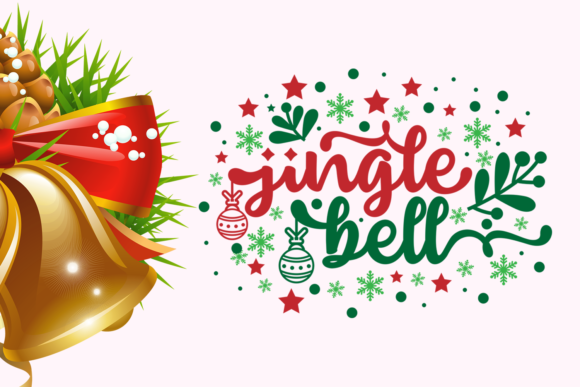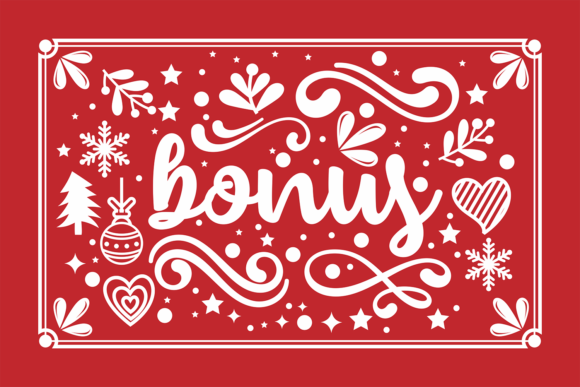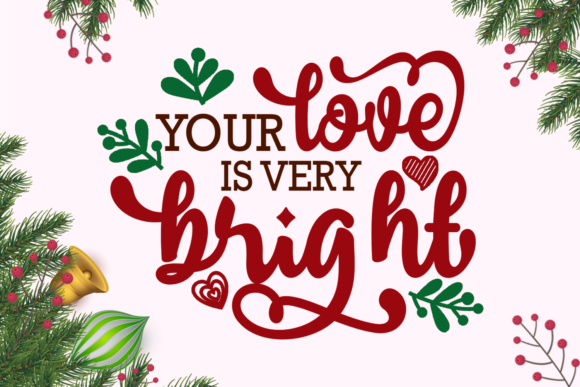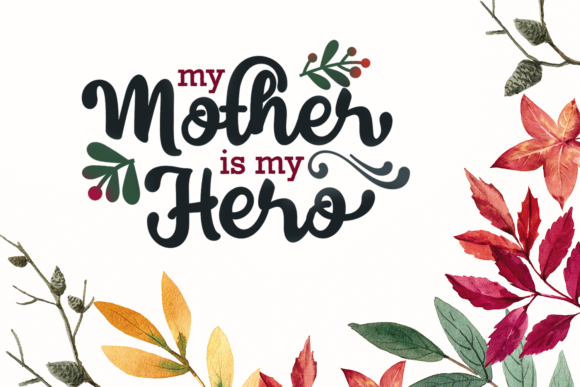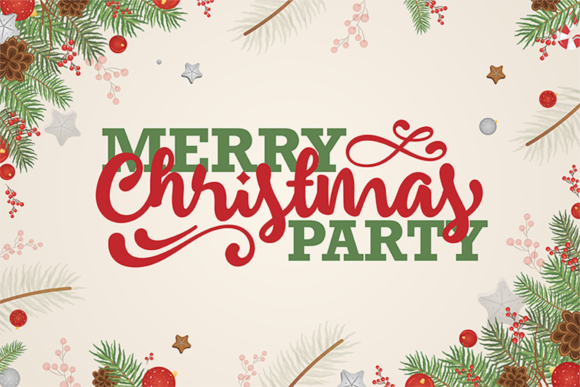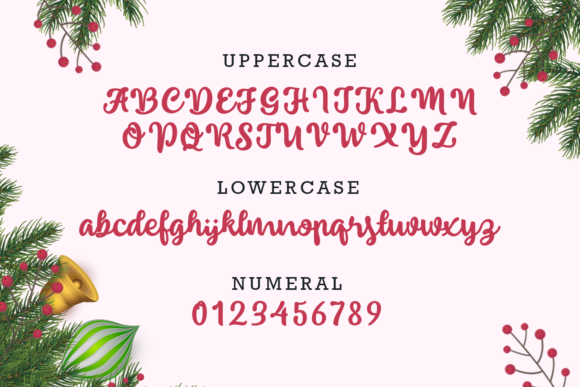
Insting Font
About Insting Font
Insting is a fresh and modern script that pays a loving tribute to classic calligraphy. Fall in love with its modern vibe!